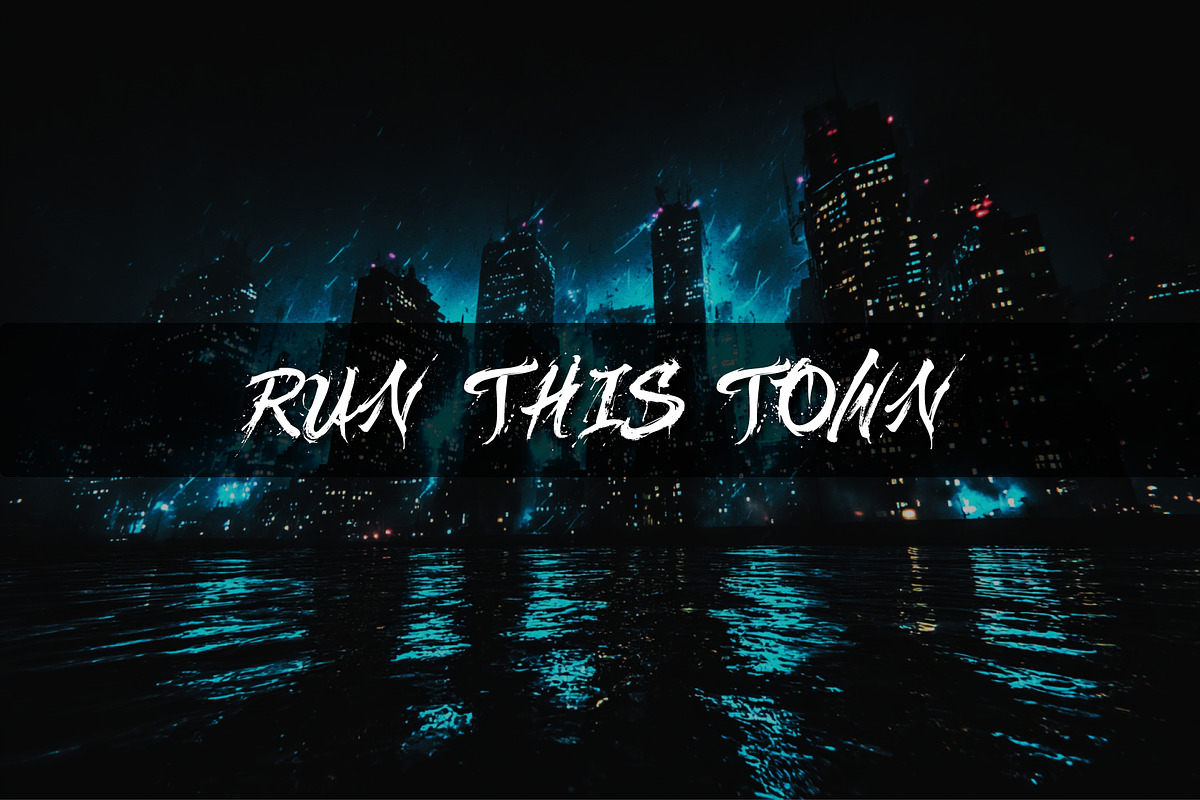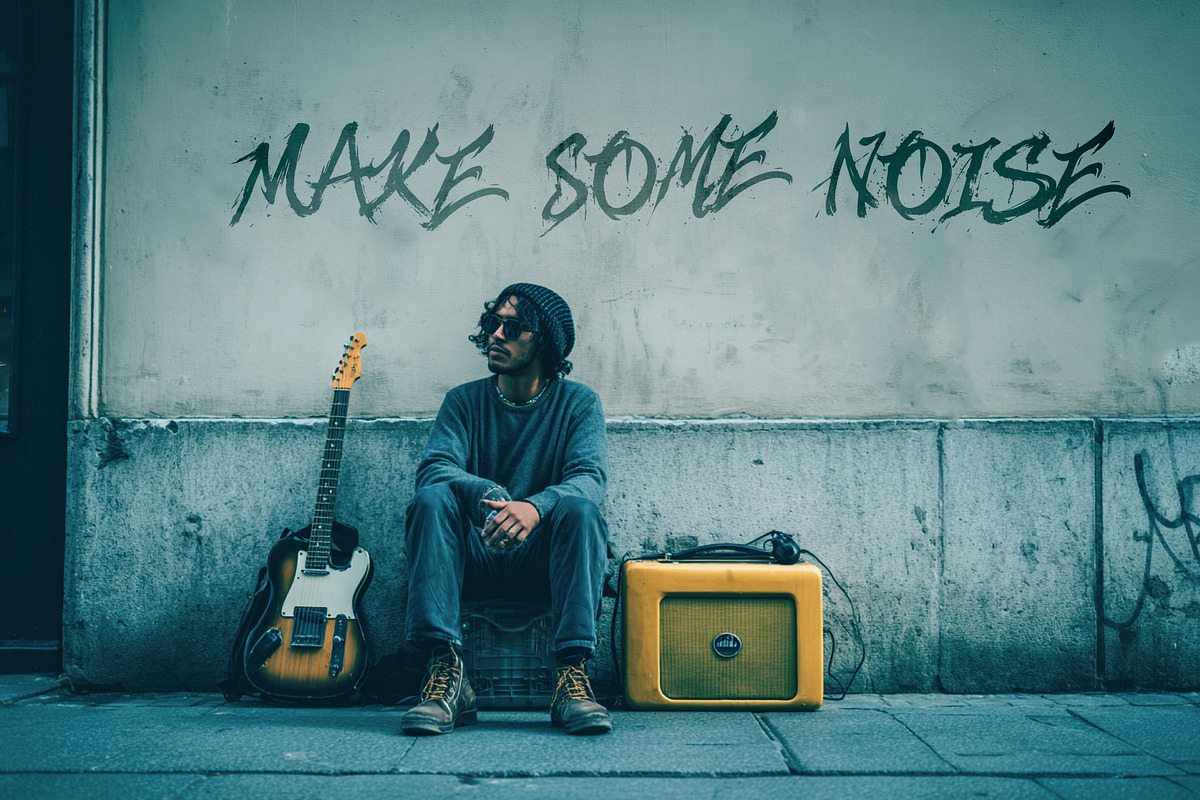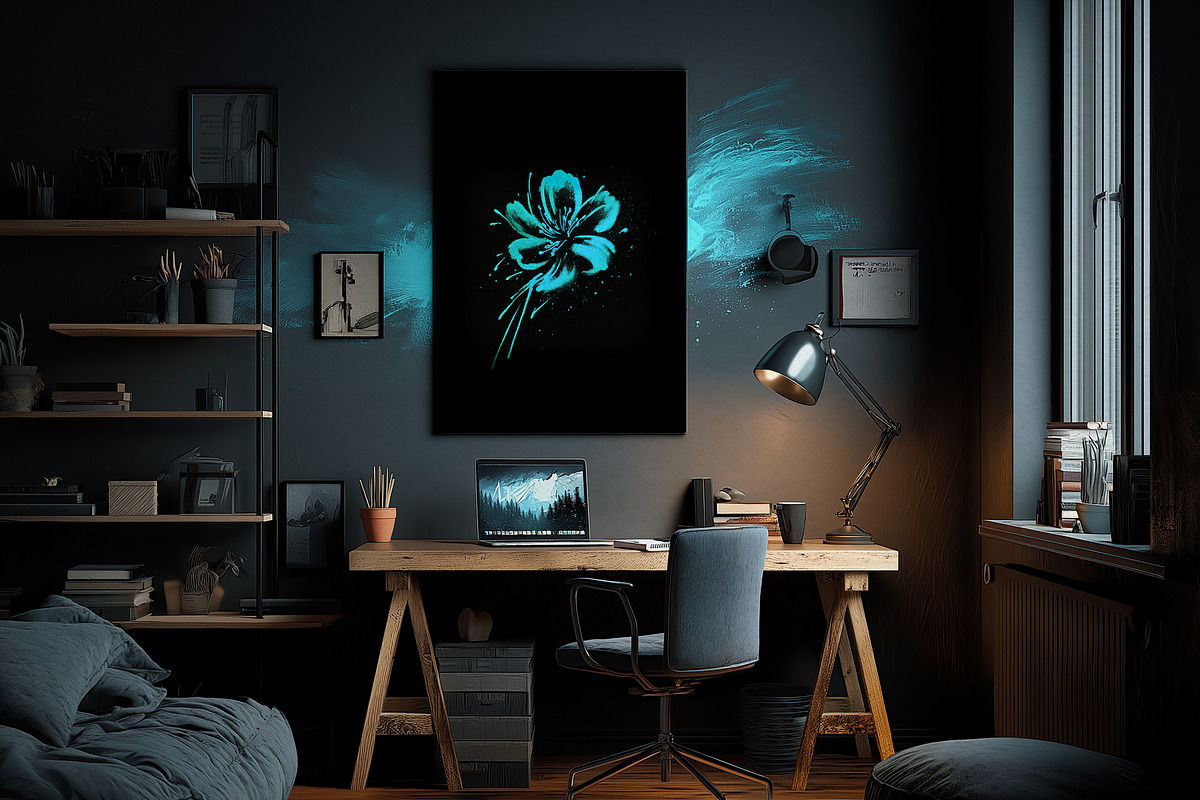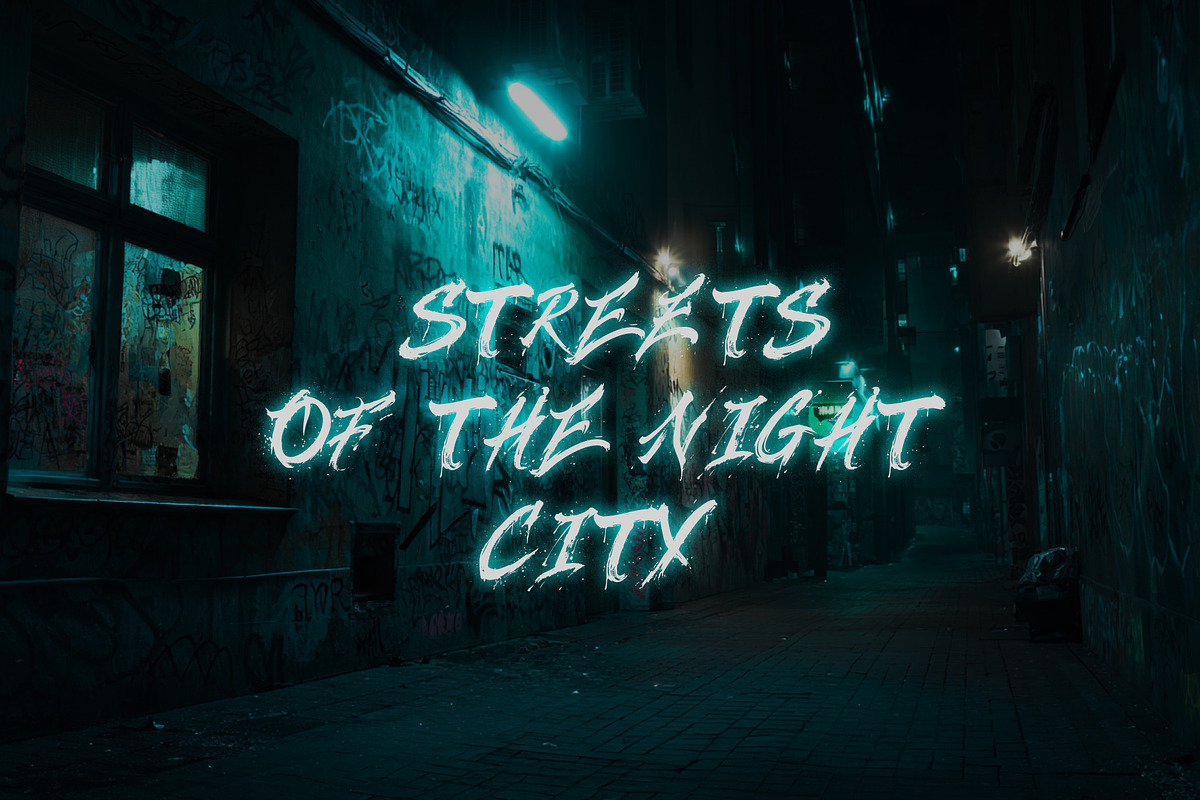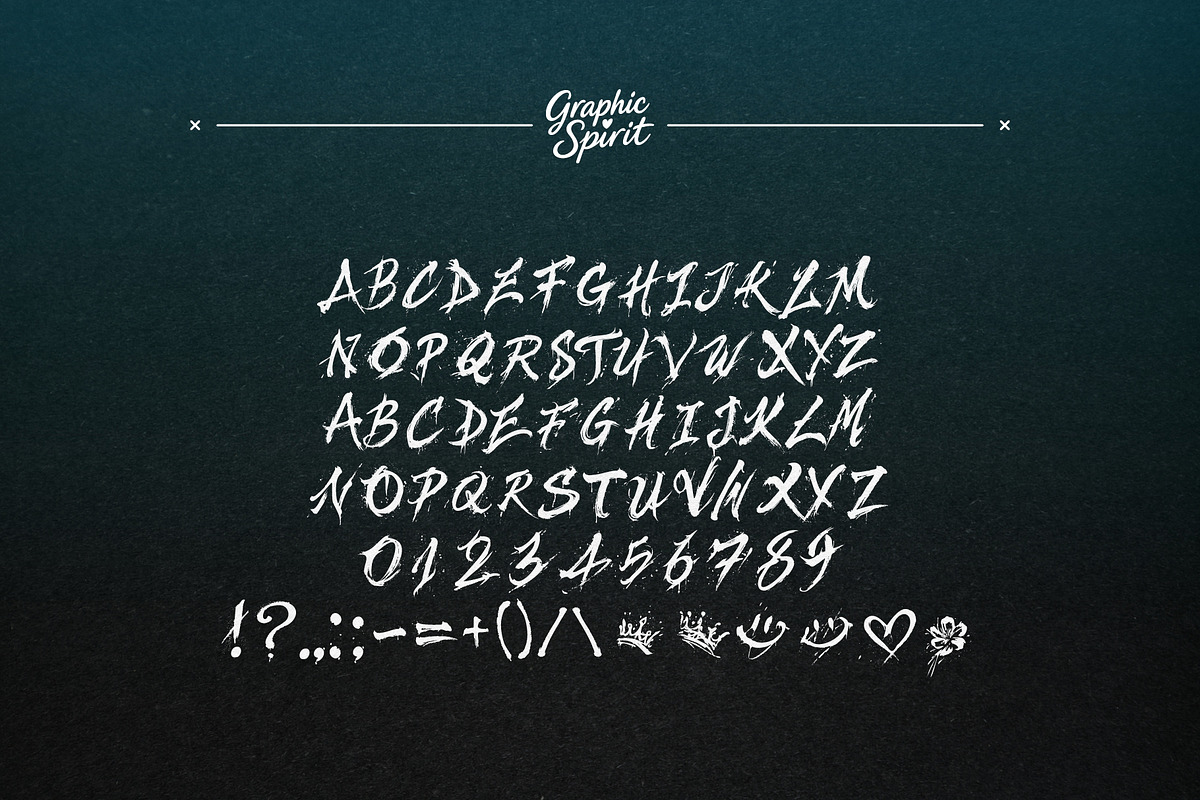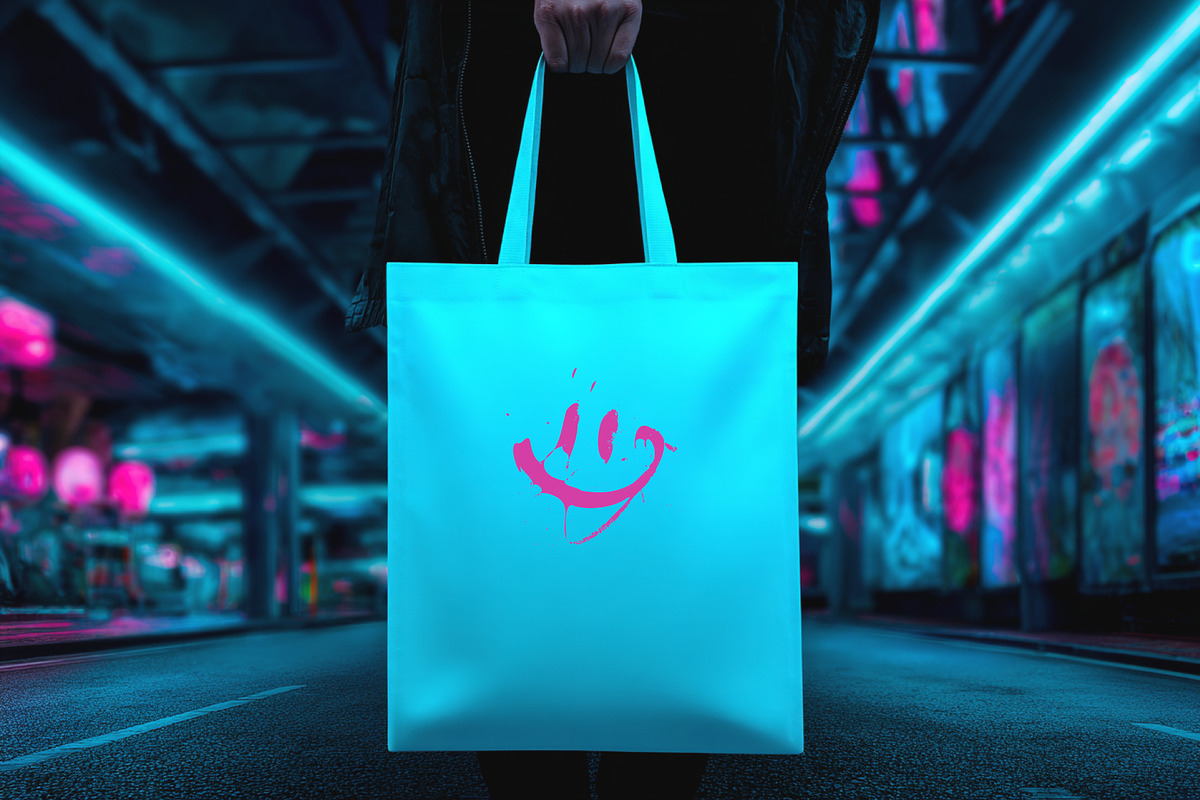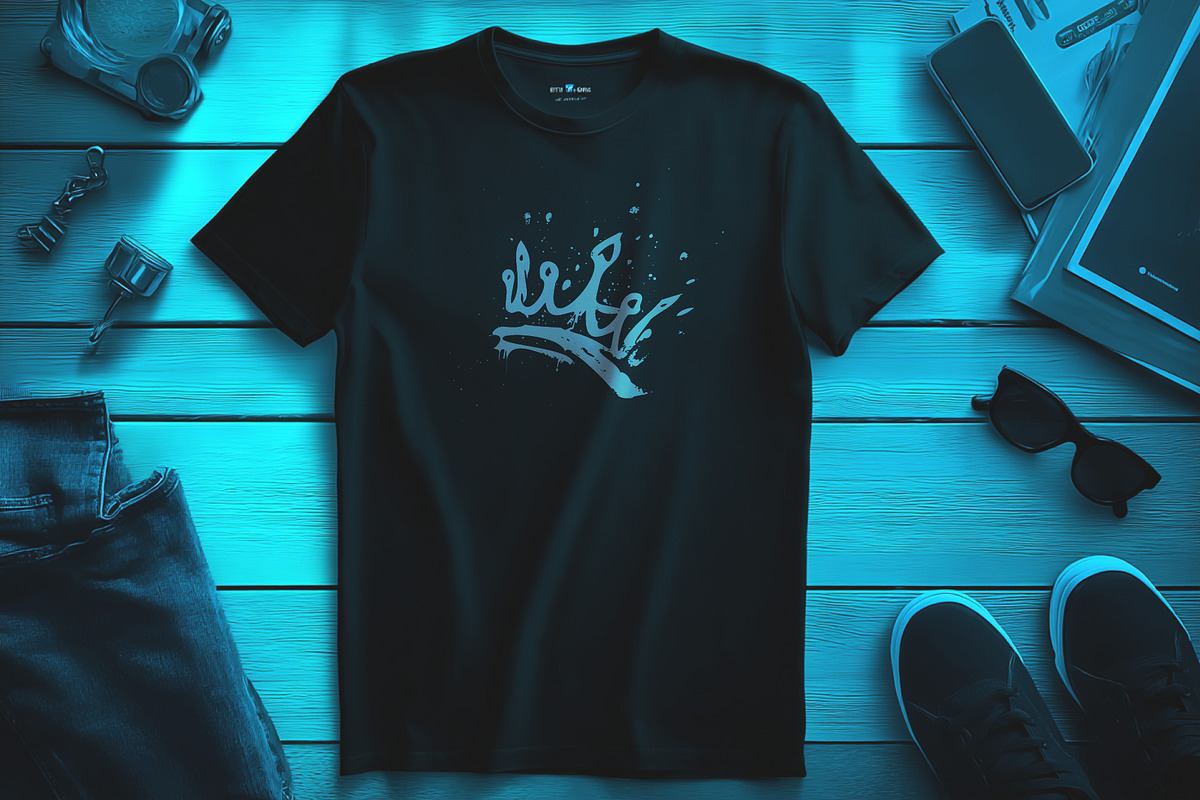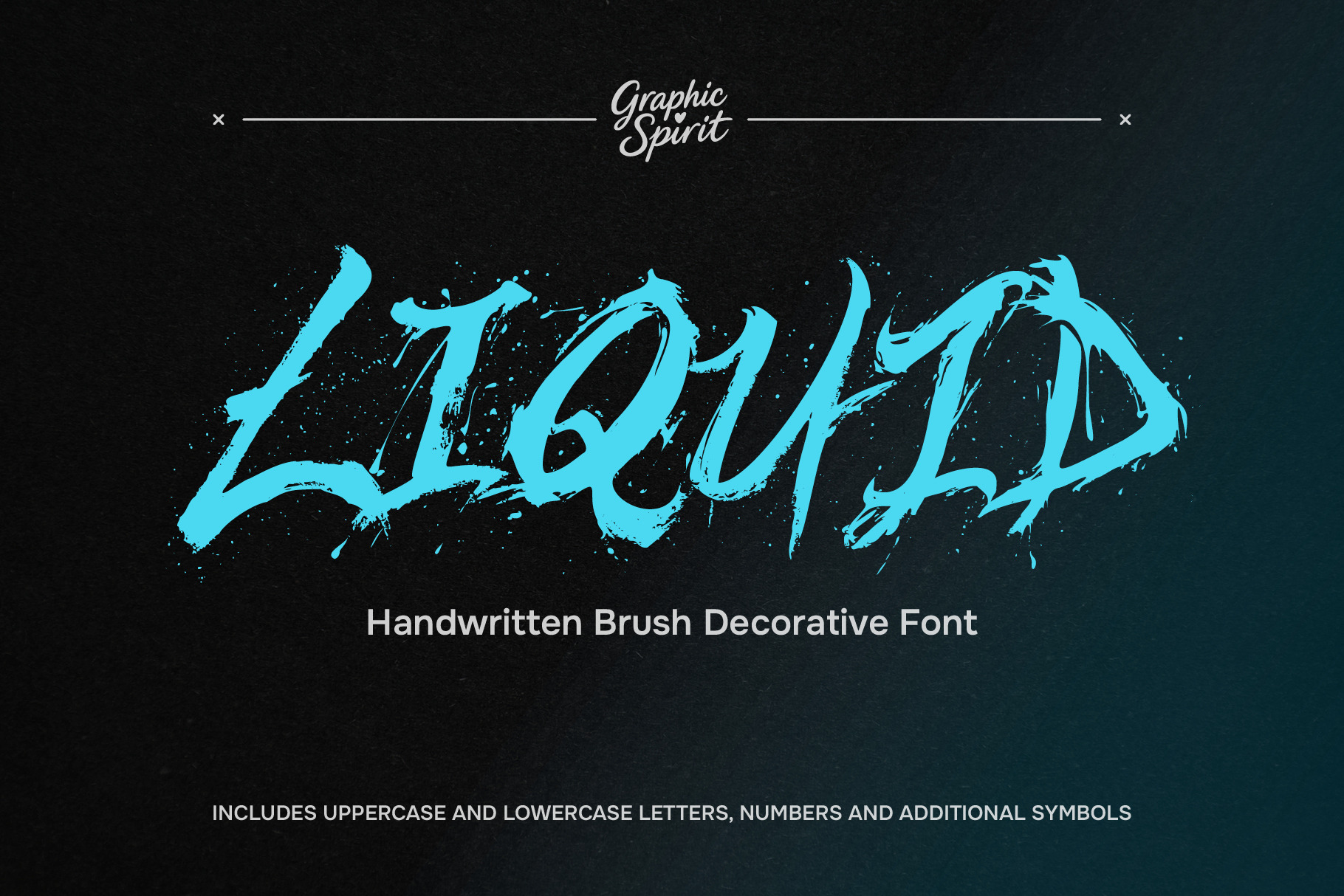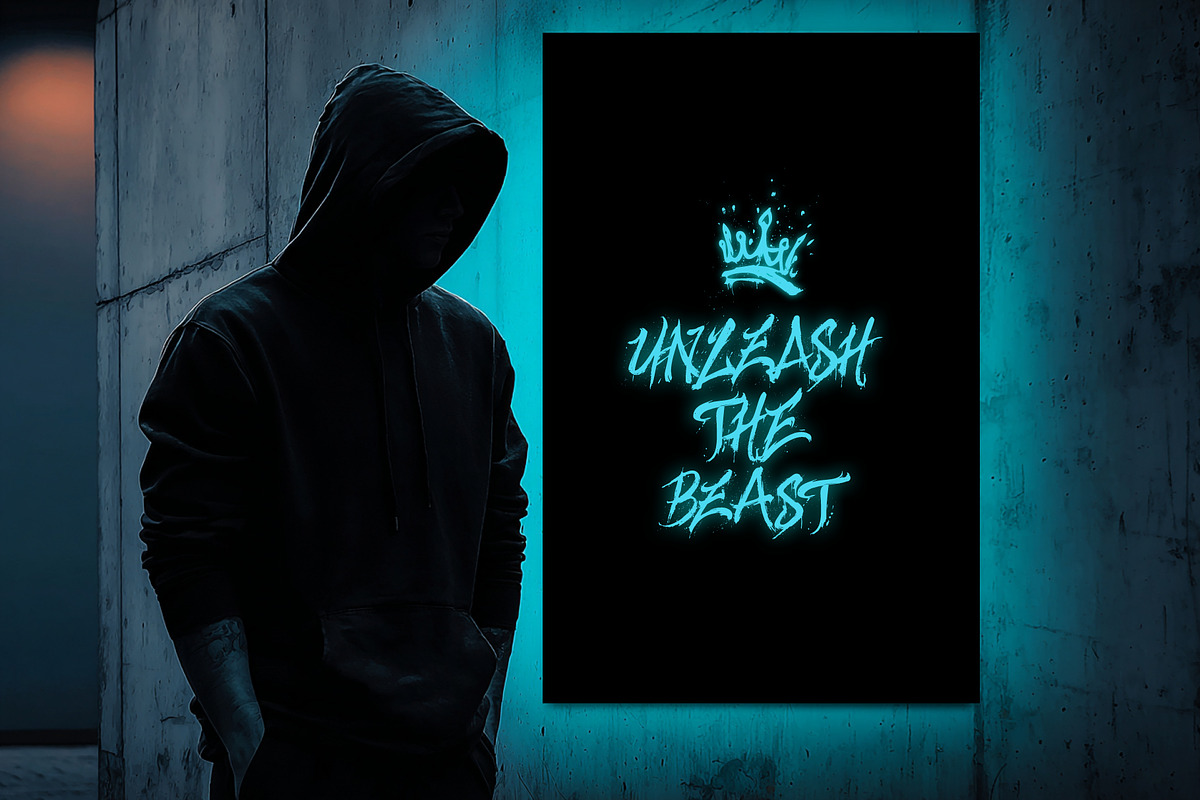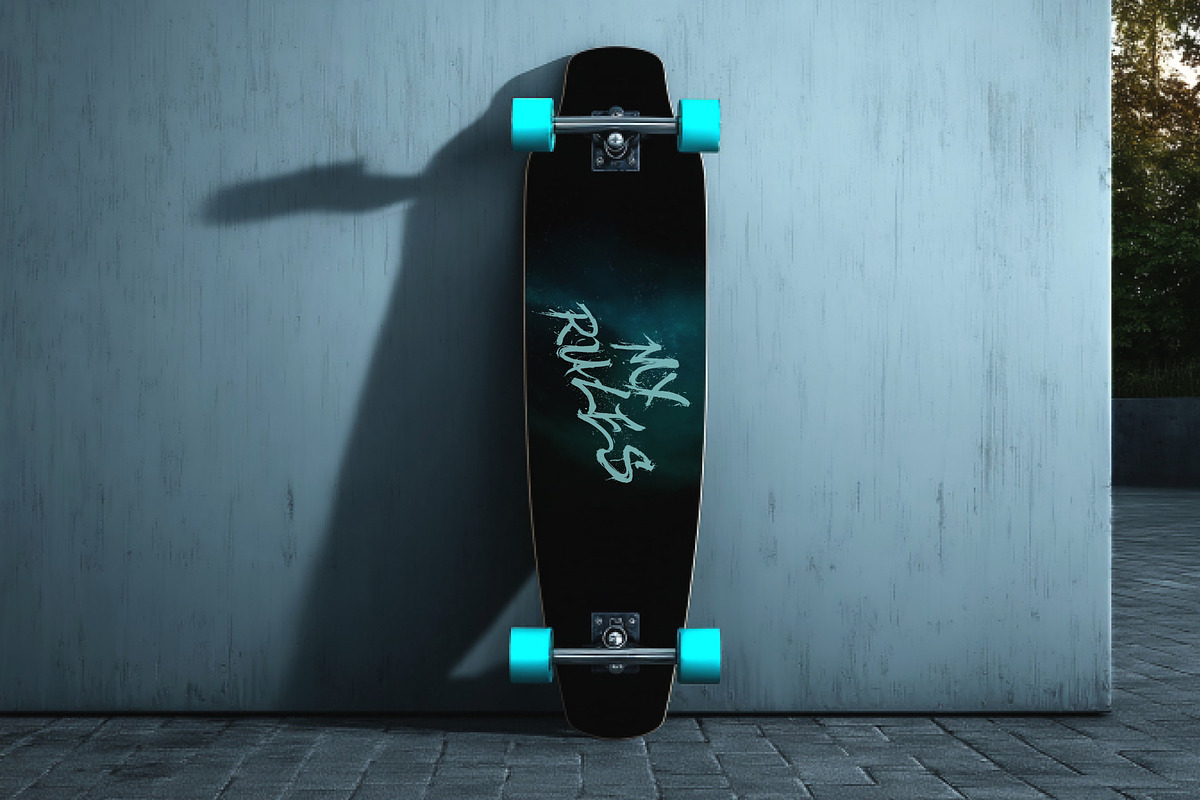
Liquid Handwritten Brush Font
Liquid Handwritten Brush Decorative Font brings artistic elegance to your creative projects. This beautiful digital font features flowing, brush-stroke letterforms with natural texture and organic charm. Perfect for wedding invitations, branding, logos, social media graphics, and artistic designs. The fluid, handwritten style adds sophistication and personal touch to any digital or print application. --- This DIGITAL DOWNLOAD includes high-quality WOFF and OTF font files compatible with most design software. Easy to install and use across Windows and Mac platforms. Transform your typography with this versatile decorative font that works beautifully for headers, quotes, packaging, and editorial design. Download instantly and start creating stunning visuals today.